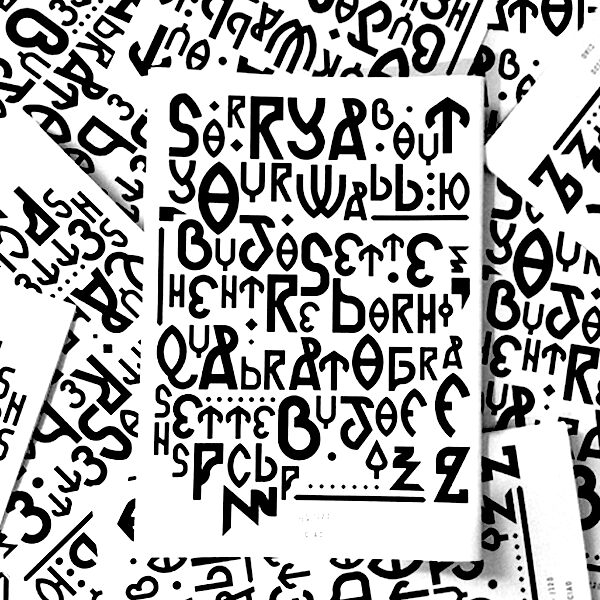
Romanjo-Regular
The font is inspired by certain lettering observed during a trip to Romania within several religious structures indentifiable with the Neo-Romanian and the Brncovenesc architectural style.